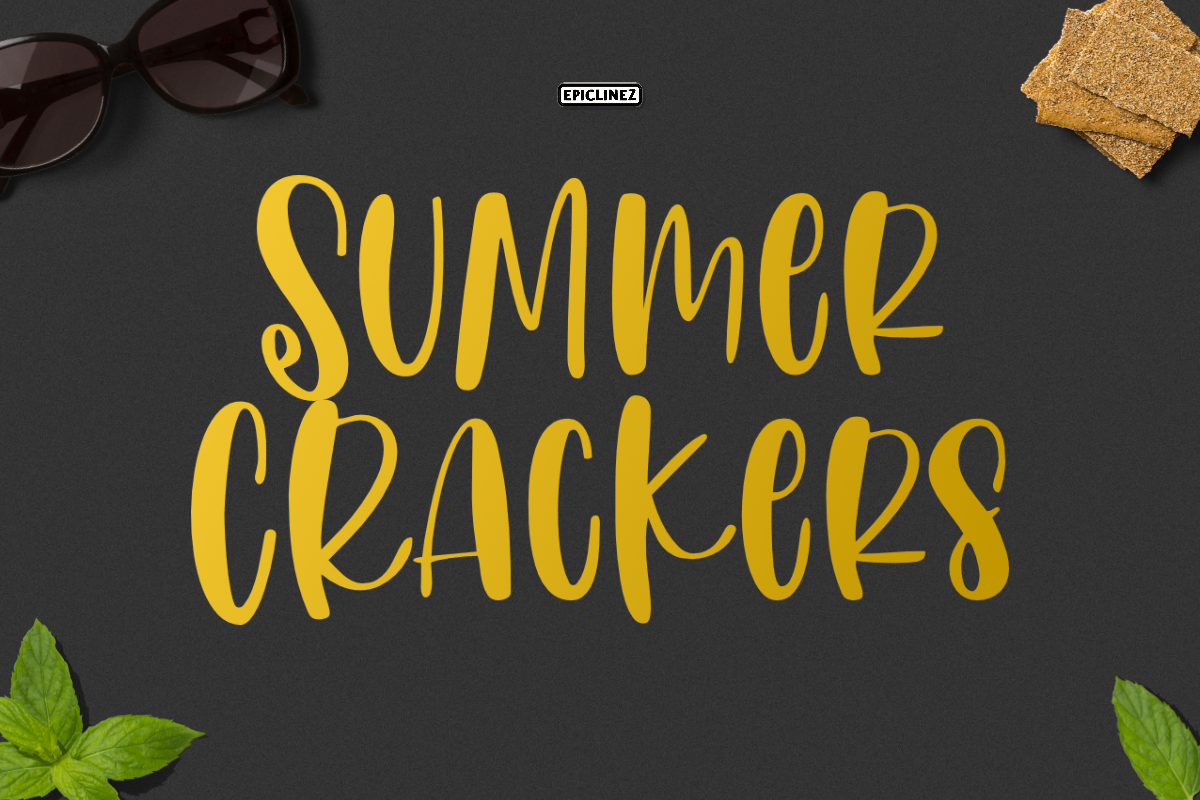
Summer Crackers | A Fun Font
Summer Crackers is a fun handwritten font. A little bit quirky, this font looks incredibly adept in a wide variety of contexts!
- Basic Latin A-Z, a-z, numbers, symbols, and punctuations.
- Accented Characters : ÀÁÂÃÄÅÆÇÈÉÊËÌÍÎÏÑÒÓÔÕÖØŒŠÙÚÛÜŸÝŽàáâãäåæçèéêëìíîïñòóôõöøœšùúûüýÿžß